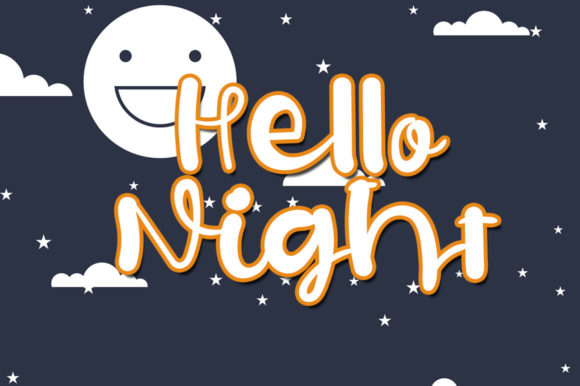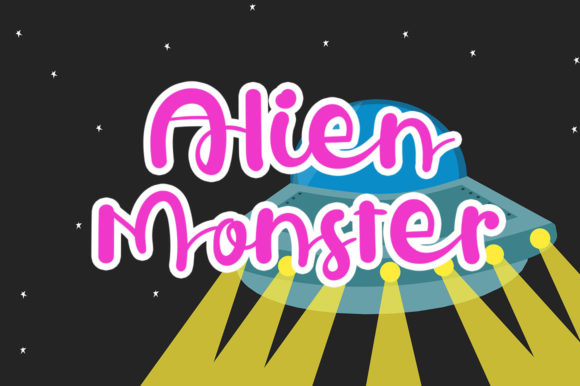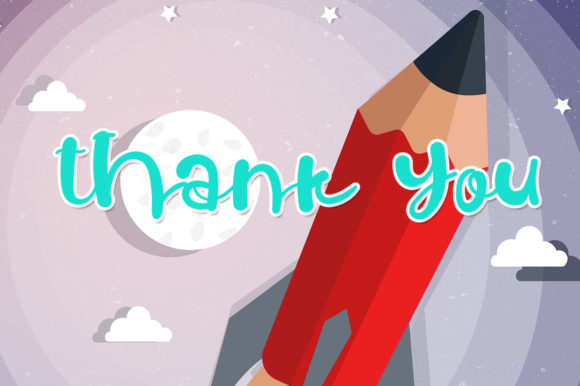
Star Slick Font
About Star Slick Font
Star Slick is a chic and trendy handwritten font. Whether you’re looking for fonts for Instagram or calligraphy scripts for DIY projects, this font will turn any creative idea into a true piece of art!